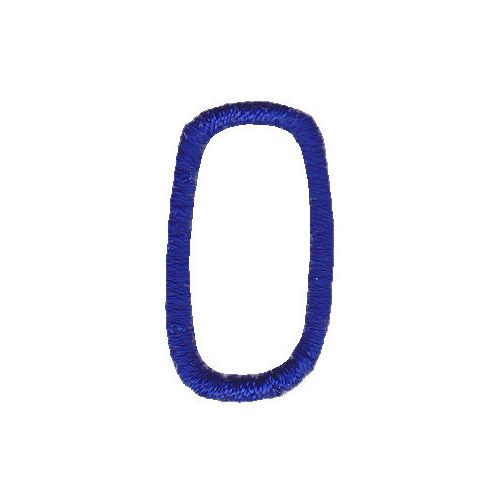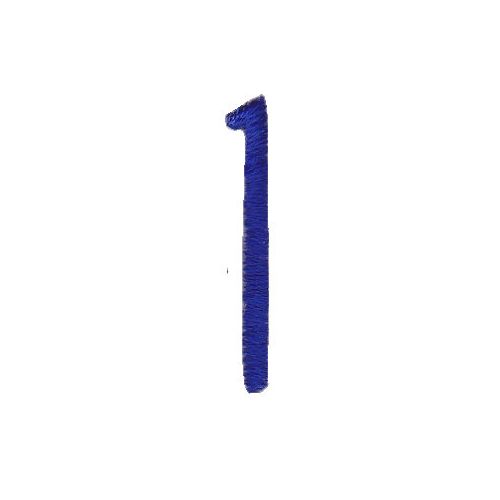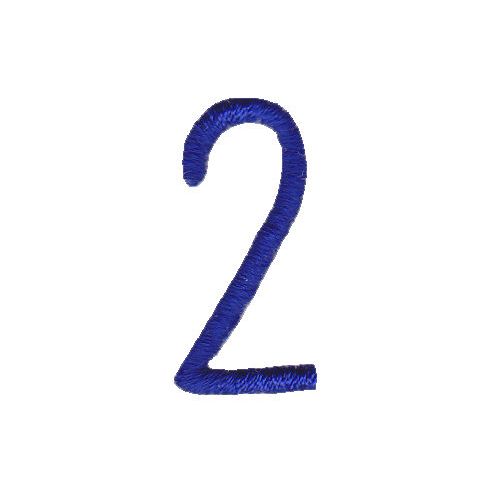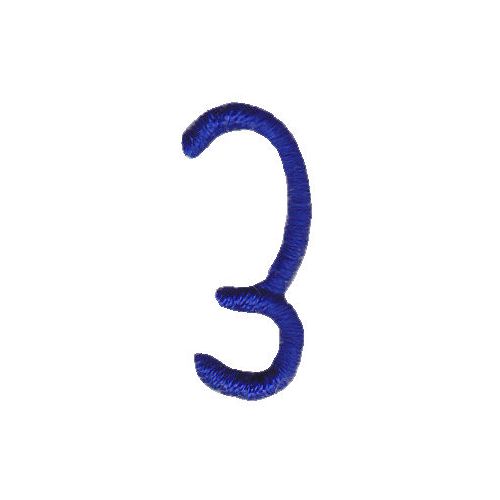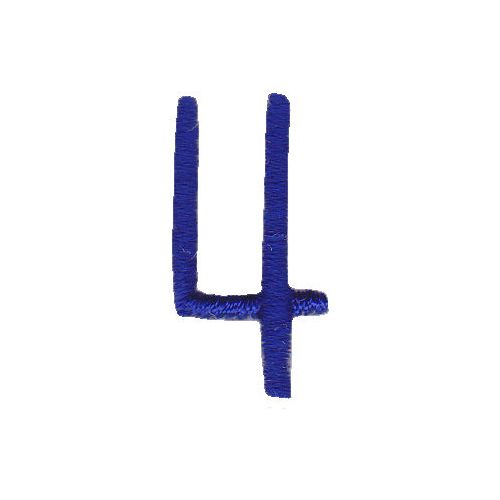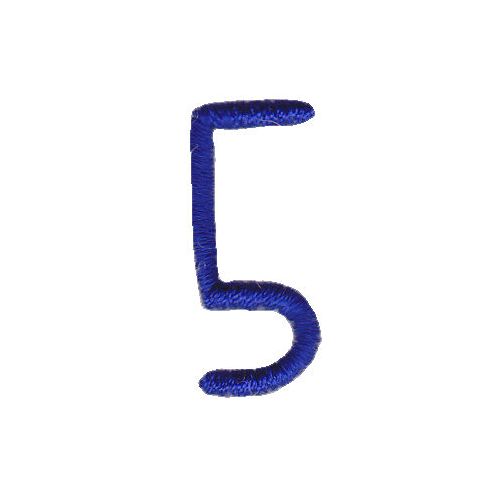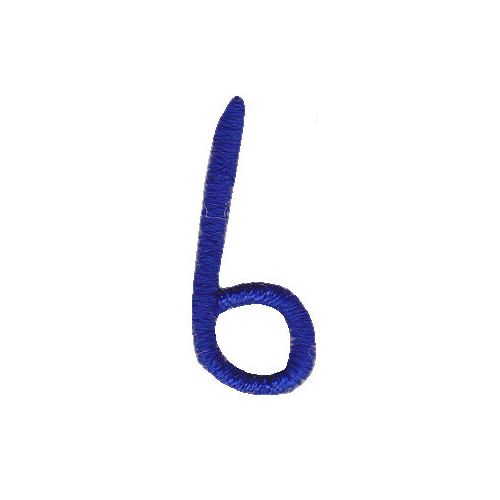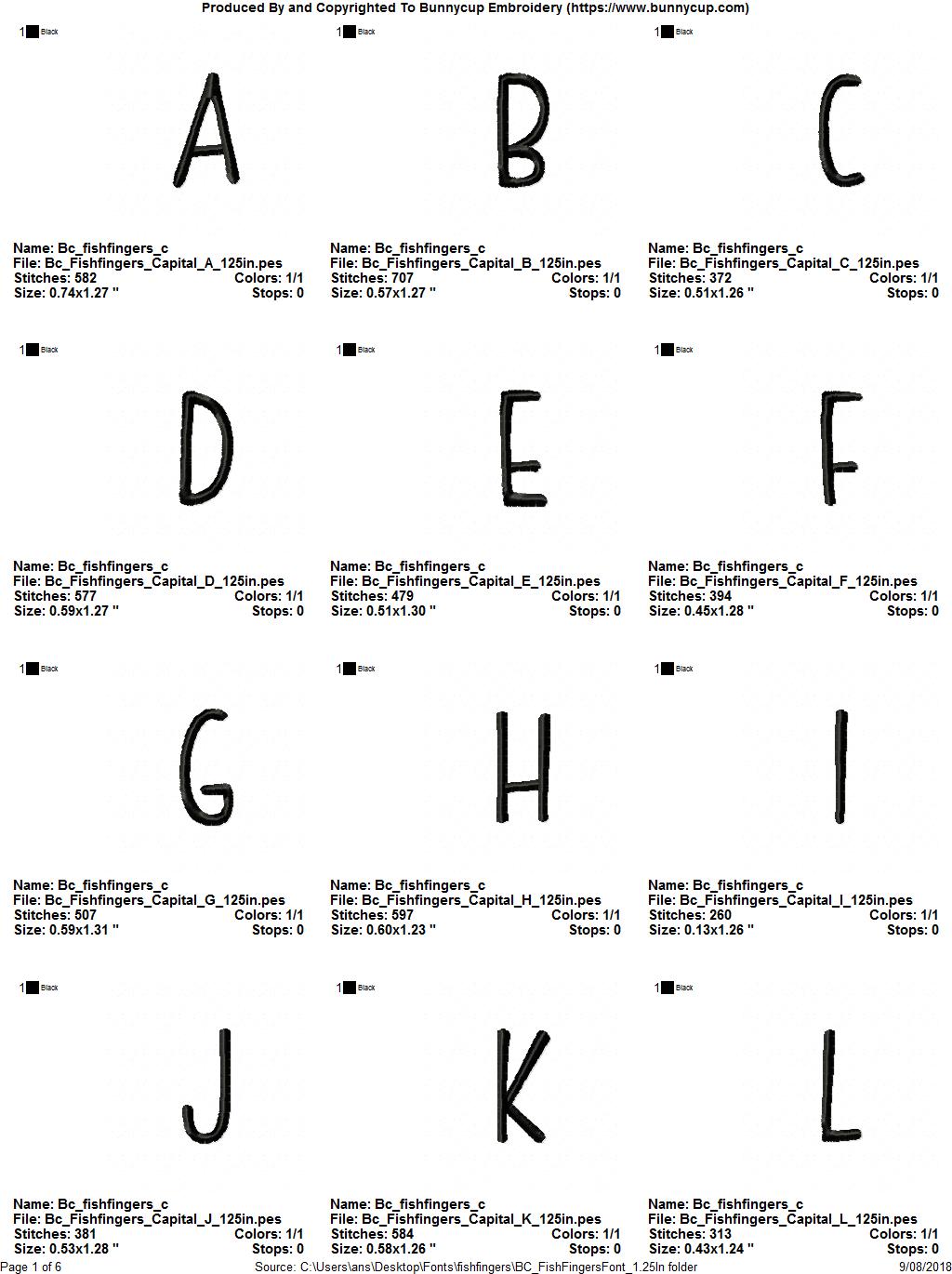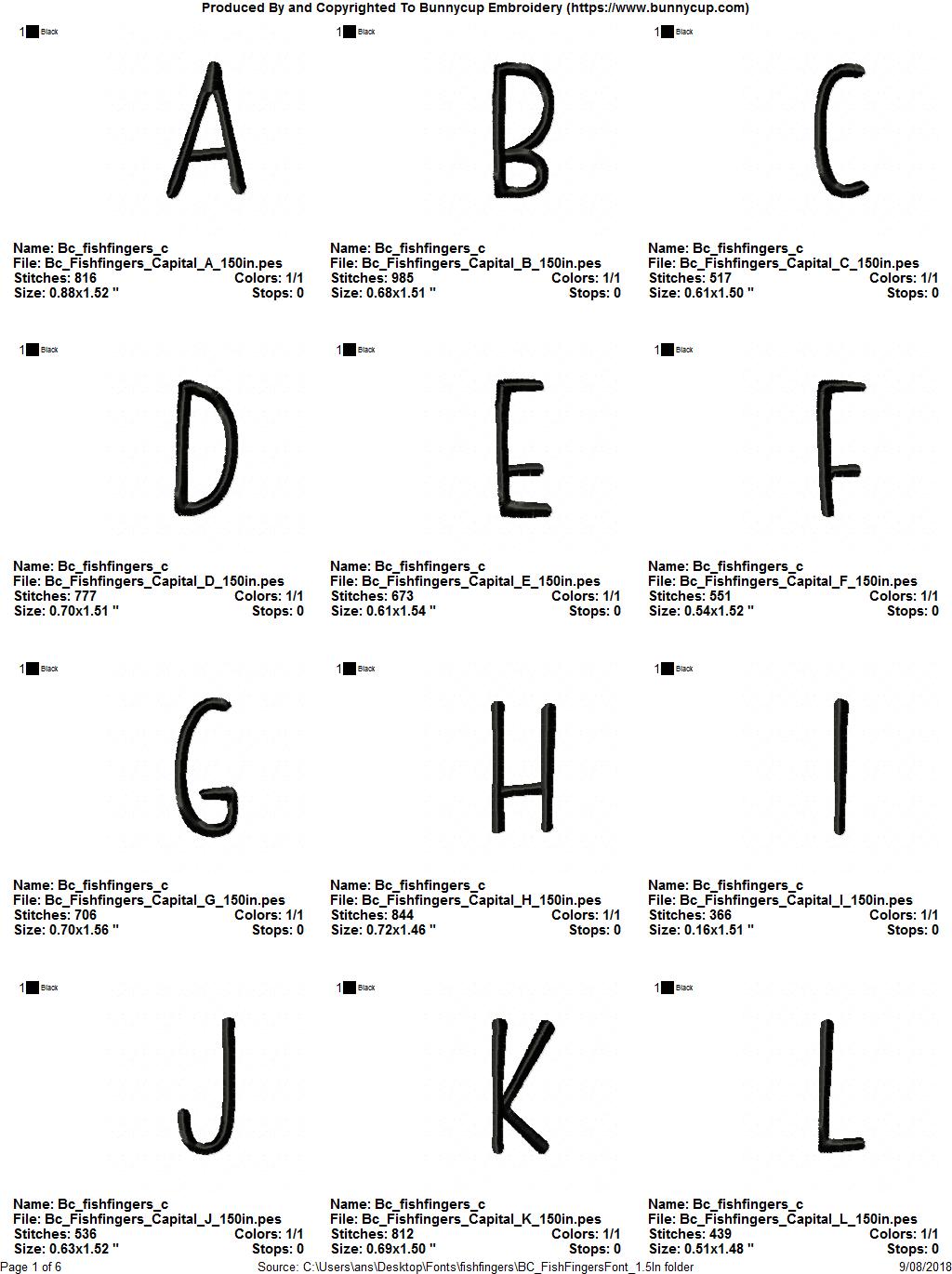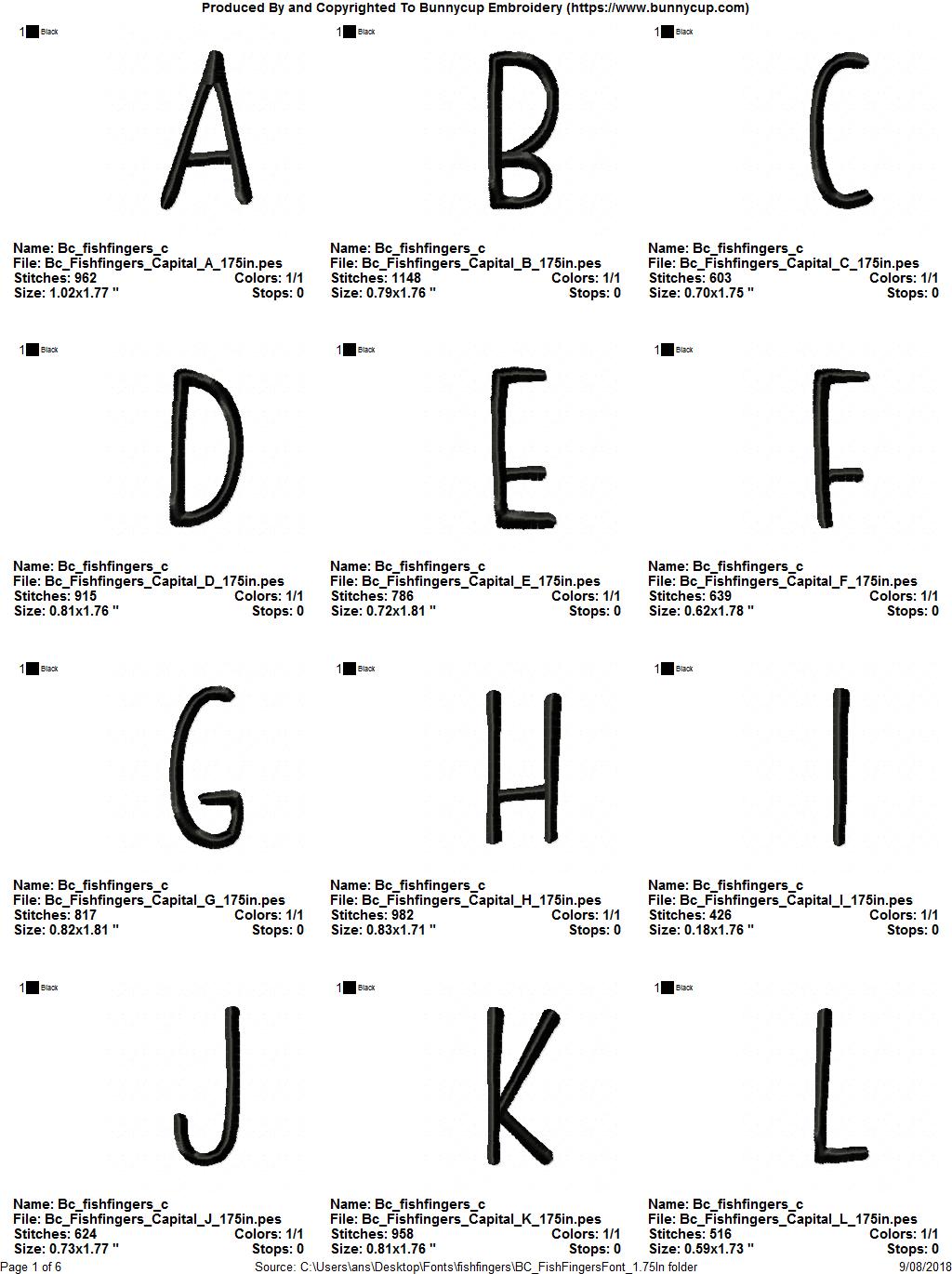
Fishfingers Font
Fishfingers Font is a neat, yet fun font, that would be great for boys (and girls too). This font comes in 5 great sizes - 1 Inch, 1.25 Inches, 1.5 Inches, 1.75 Inches and 2 Inches. The font includes Capitals, Lower Case and Numbers as displayed. BX files are also included for use with the Embrilliance software when purchasing the full alphabet set. Just choose your machine format, and the BX files will be included with your machine format files. See our full range of